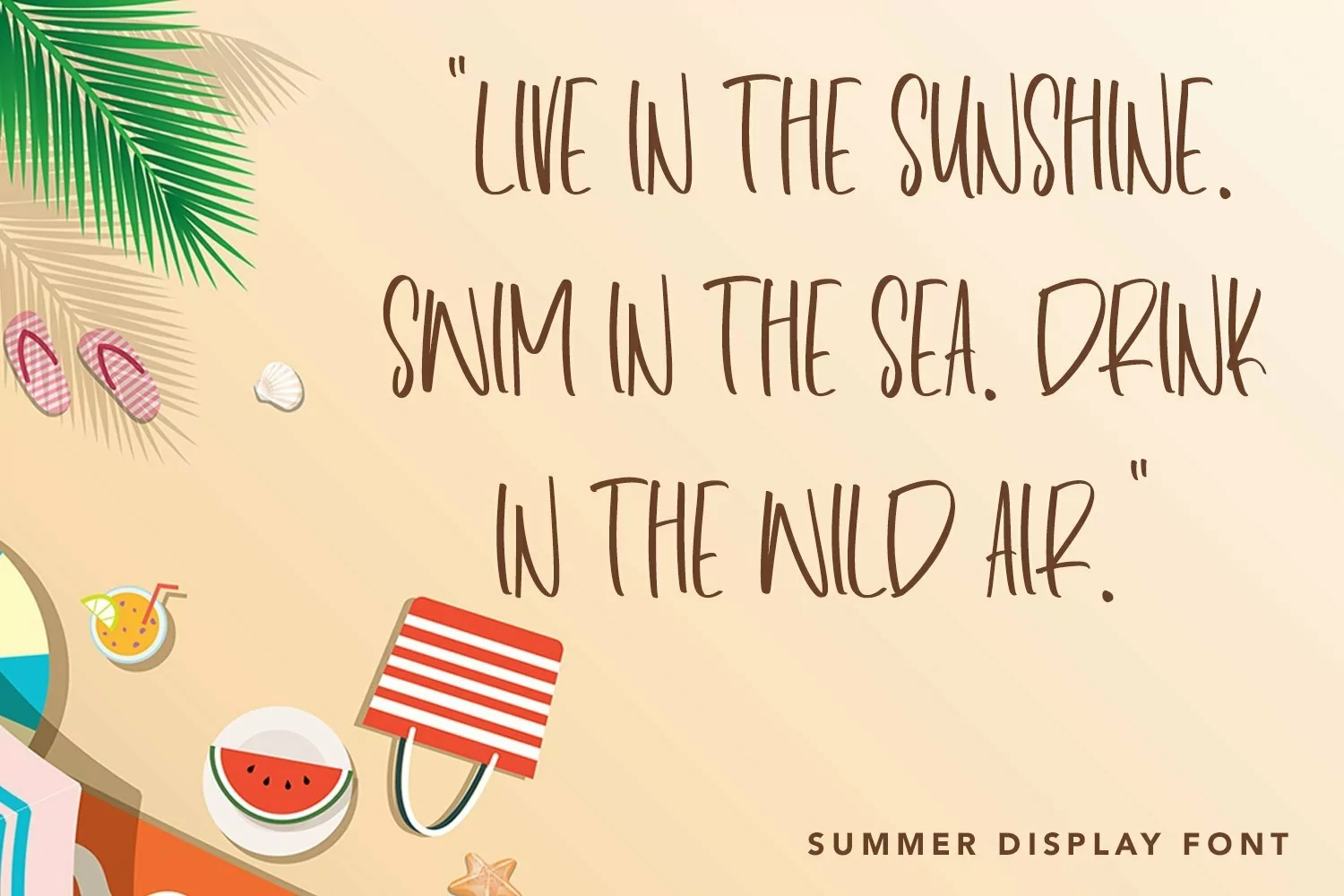
Web Font Outdoor Sunscreen - Summer Display Font that has a distinctive character that is very thick and elegant to use
Outdoor Sunscreen is a relaxed and flowing Calligraphy Font. Incredibly versatile, this font fits a wide pool of designs, elevating them to the highest levels. Add this font to your favorite creative ideas and notice how it makes them come alive!
Outdoor Sunscreen